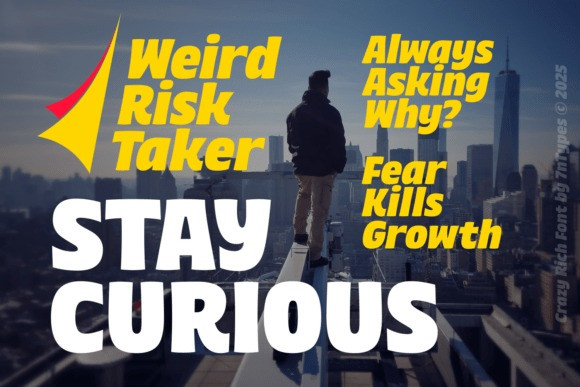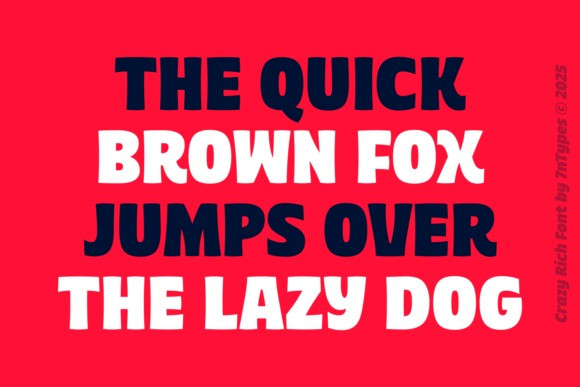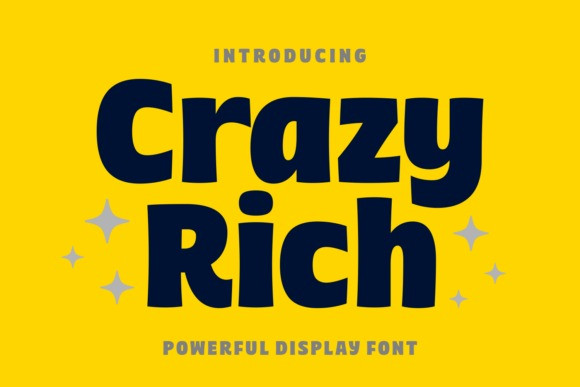
Crazy Rich Font
Crazy Rich Font is a bold and attention-grabbing font that stands out with its unique combination of thick letterforms and slightly rounded edges. The design gives it a friendly yet powerful look, ideal for headlines, logos and branding that need a strong statement. The font’s distinctive character set, which includes both regular and italic styles, offers flexibility in creating dynamic and engaging layouts. The uppercase letters are particularly striking, giving a confident, solid feel, while the lowercase letters offer a more accessible and readable option.
A complete and comprehensive toolkit is included with the Crazy Rich font, ensuring its utility for a wide range of creative projects. The character set provides a full uppercase and lowercase alphabet, numerals, and an extensive array of punctuation and symbols. Furthermore, the font offers multilingual support, making it a versatile option for designers, marketers, and content creators working on international projects or catering to a global audience. Its robust feature set and clear, impactful design make it particularly well-suited for businesses and individuals who want to convey a sense of modern confidence, luxury, or playful extravagance.